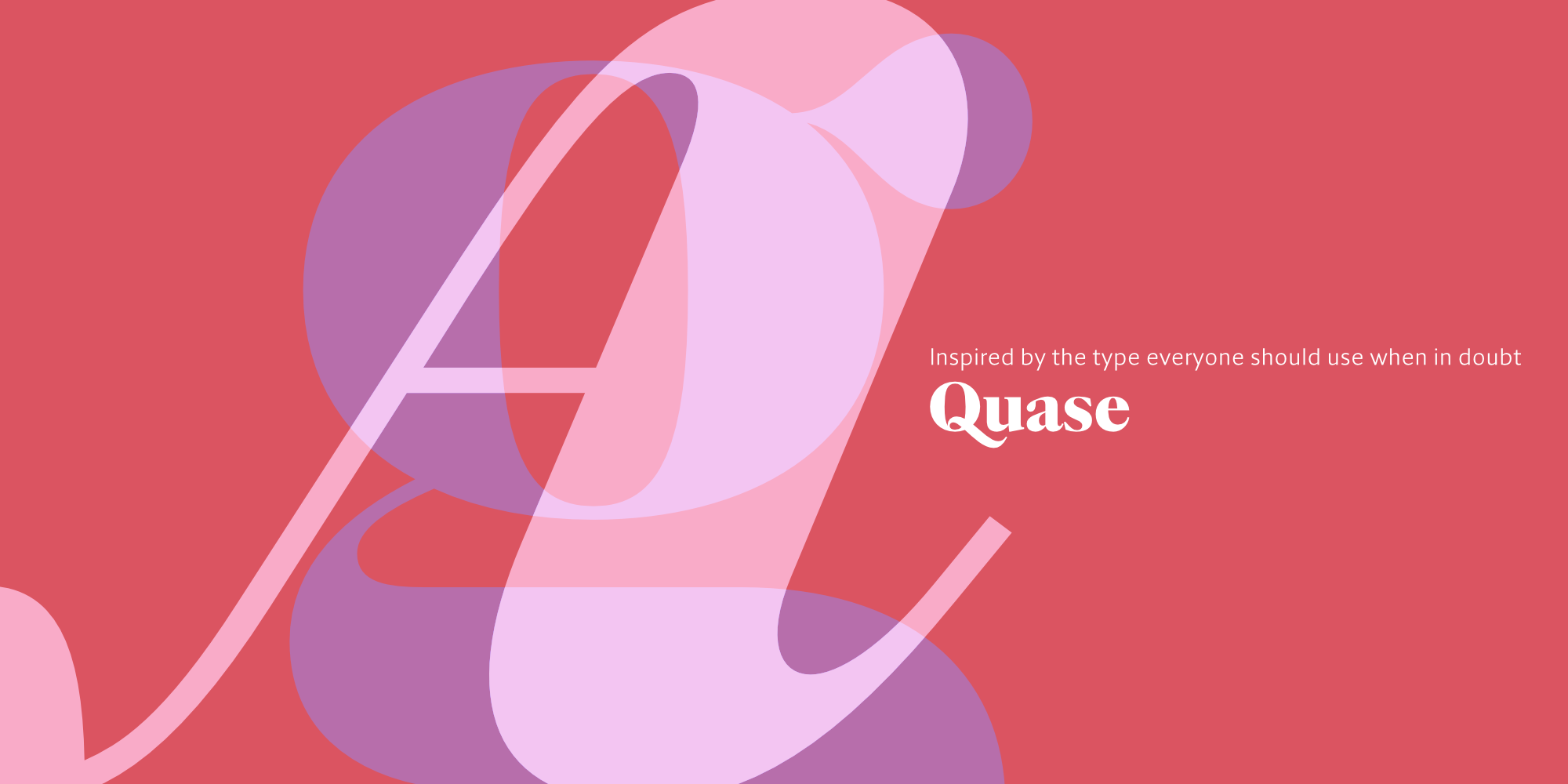
If you're searching for a bold, attention-grabbing typeface with unique character, Quase Display Font Free Download is an excellent choice. Designed for modern, high-impact projects, Quase Display combines a sleek, contemporary aesthetic with distinct, geometric shapes that make it stand out in any design.
This display font features clean lines, sharp angles, and a striking personality, making it perfect for large headings, logos, branding, poster designs, and digital content where you want to make a strong statement. Its bold, stylized letterforms command attention while maintaining a sense of clarity and professionalism.
Quase Display is ideal for creative campaigns, event marketing, product packaging, and any design that requires a bold yet elegant typographic style. Its unique character makes it suitable for both modern minimalism and more elaborate design contexts.